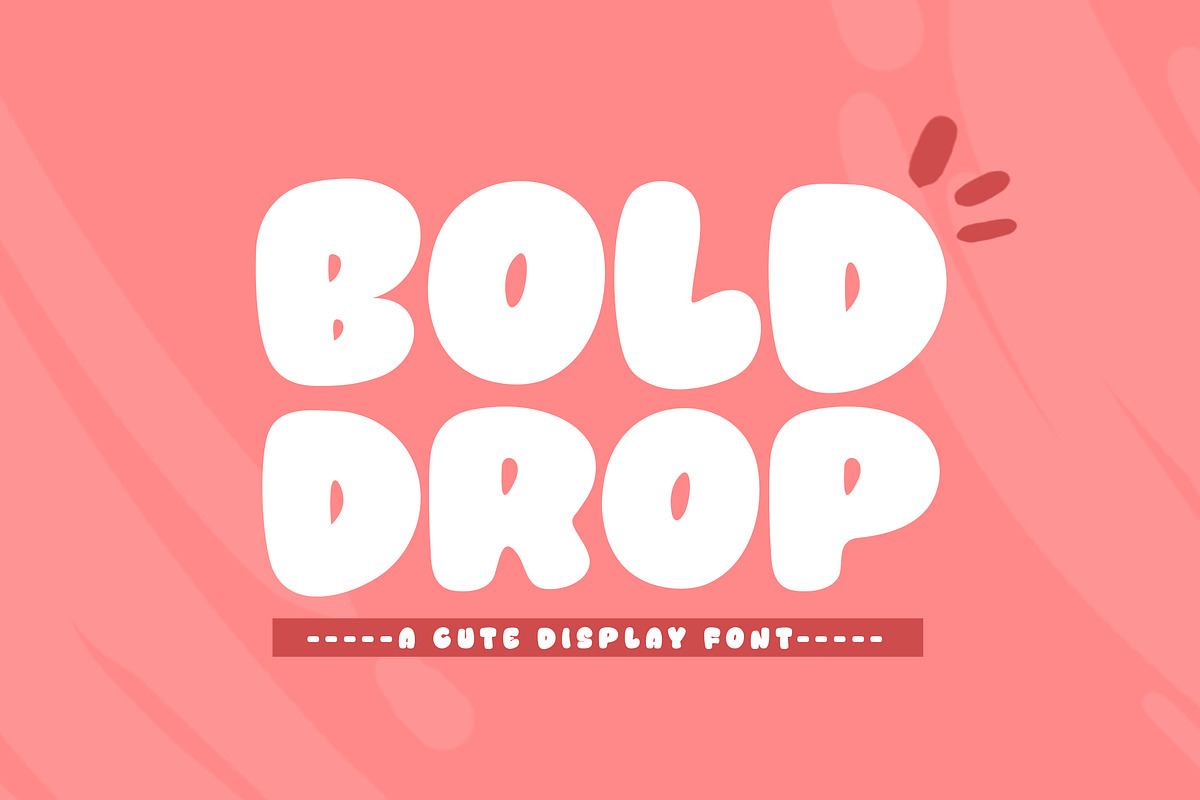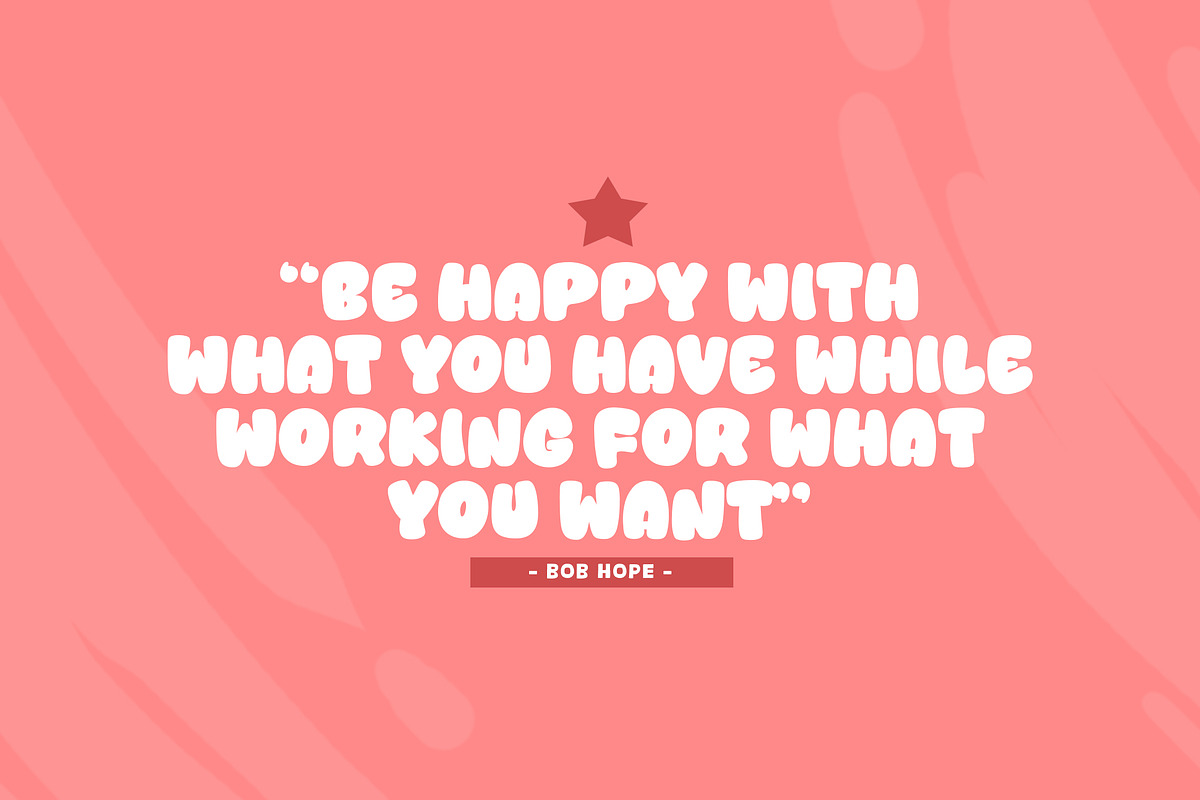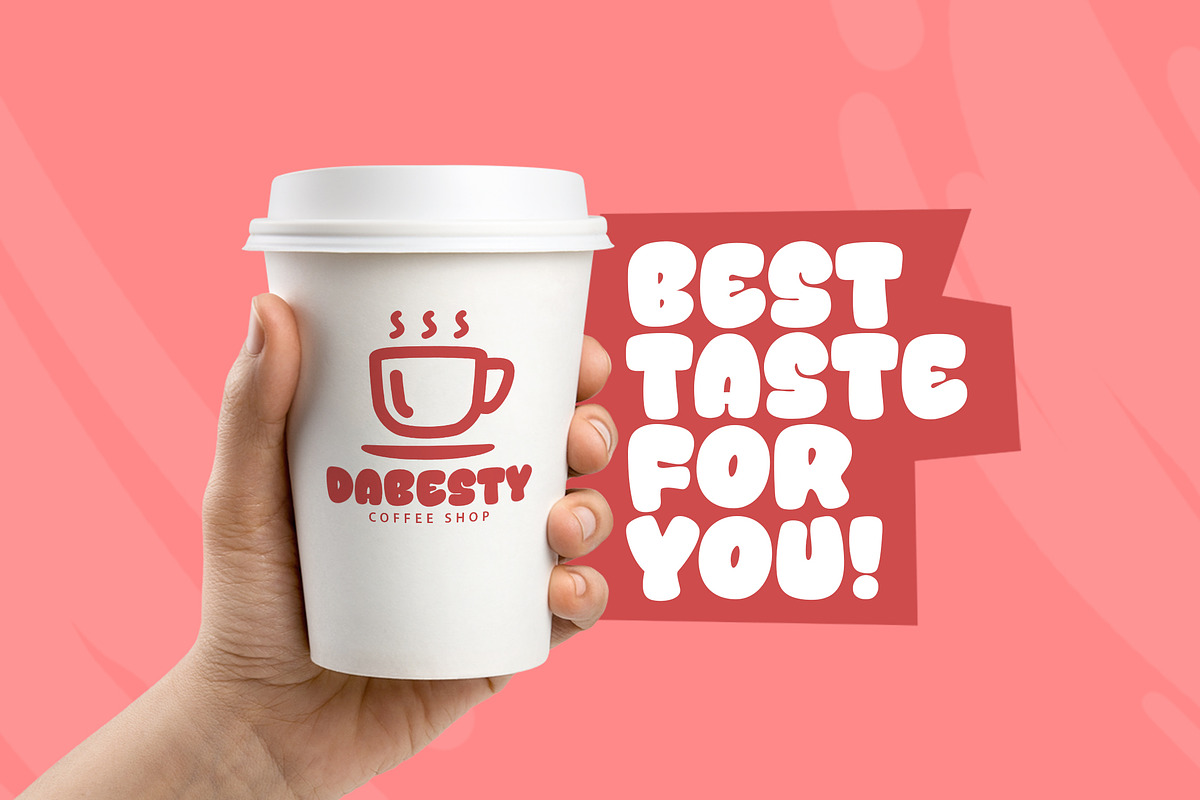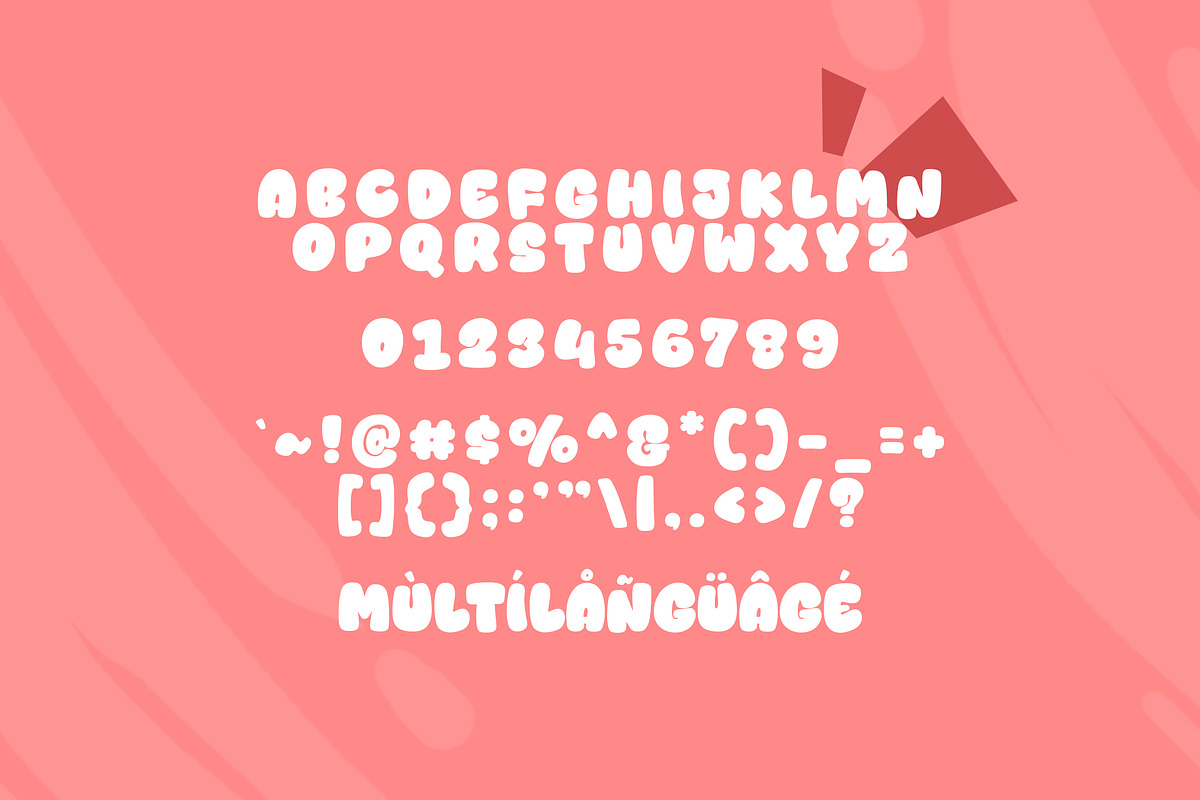
Bold Drop
Introducing, Bold Drop font a fun display typeface with cheerful theme for your fun project. Bold Drop font suitable for logo, branding, greeting card, poster and any design that you create.